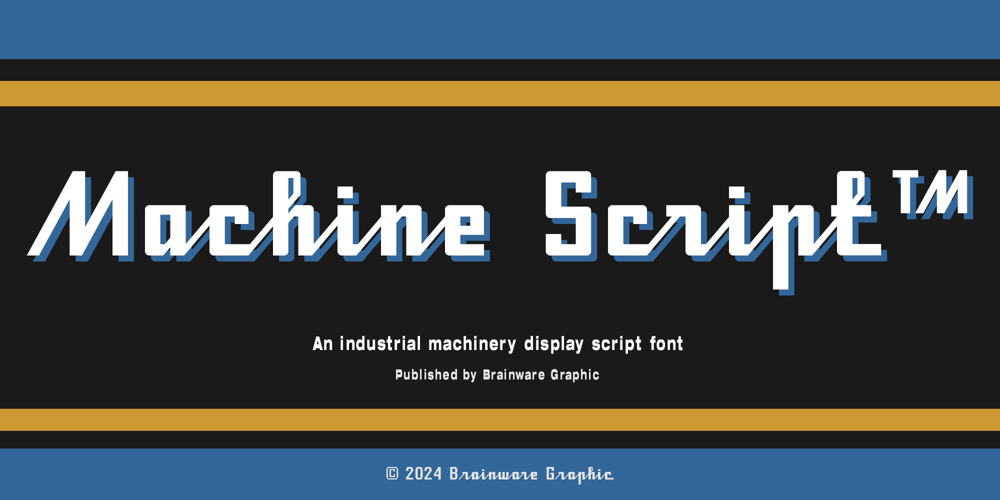
Machine Script
Machine Script font
Machine Script Font Family was designed by Muhammad Jauhar Azmi and published by Brainware Graphic. Machine Script contains 1 styles and family package options. Machine Script is an industrial machinery looks font, inspired by vintage/retro typography at vintage old sewing machine store signage.